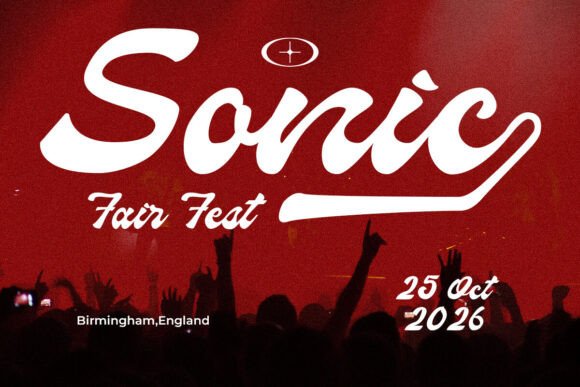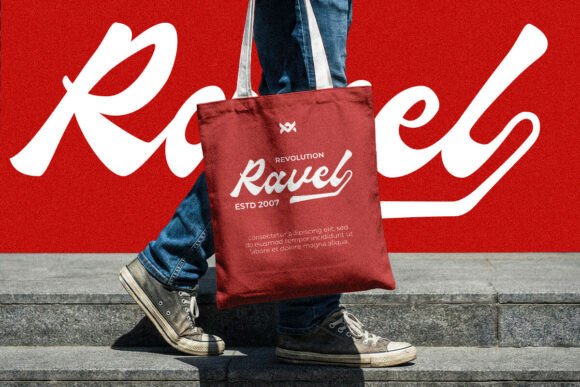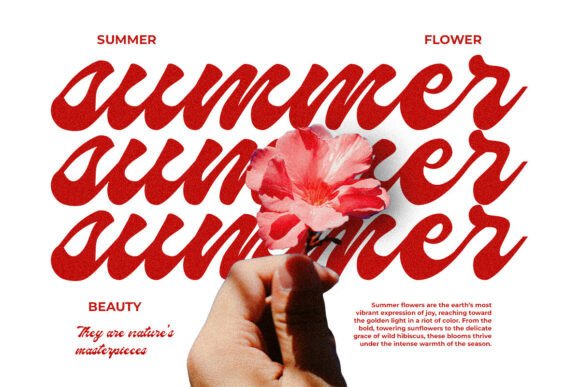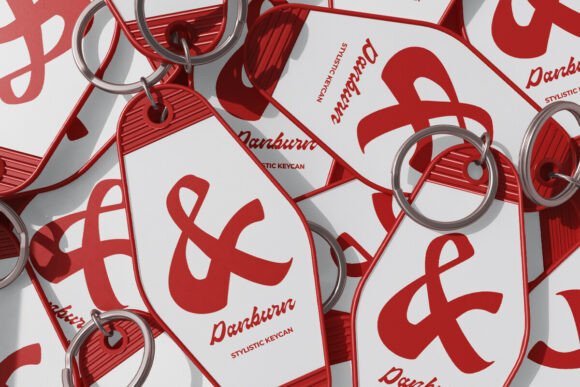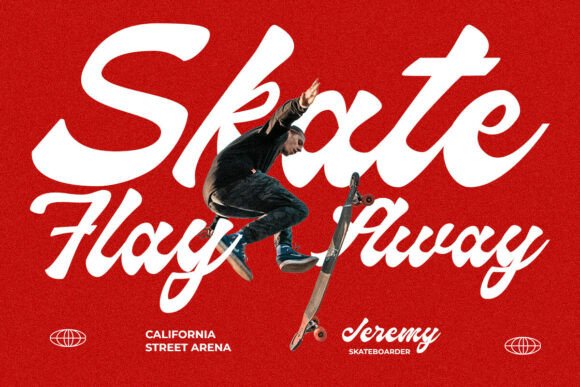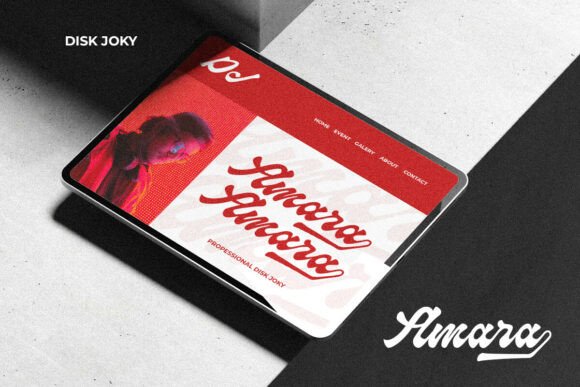
Introduction to Hormuz Font
Hormuz is a bold script handwritten streetwear font crafted to deliver strong attitude and urban energy into your designs.
Inspired by street culture, graffiti aesthetics, and modern fashion branding, this font features thick strokes, dynamic curves, and expressive letterforms that instantly grab attention Designed for creators who want to make a statement, Hormuz combines the fluidity of handwritten script with the boldness of street-style typography.